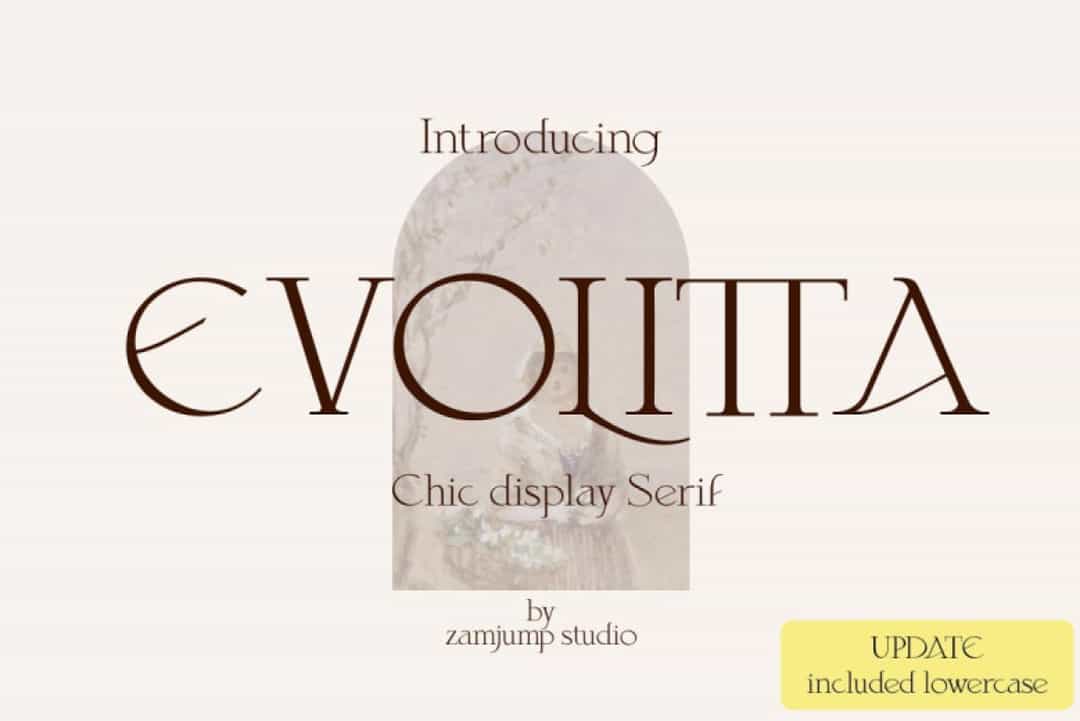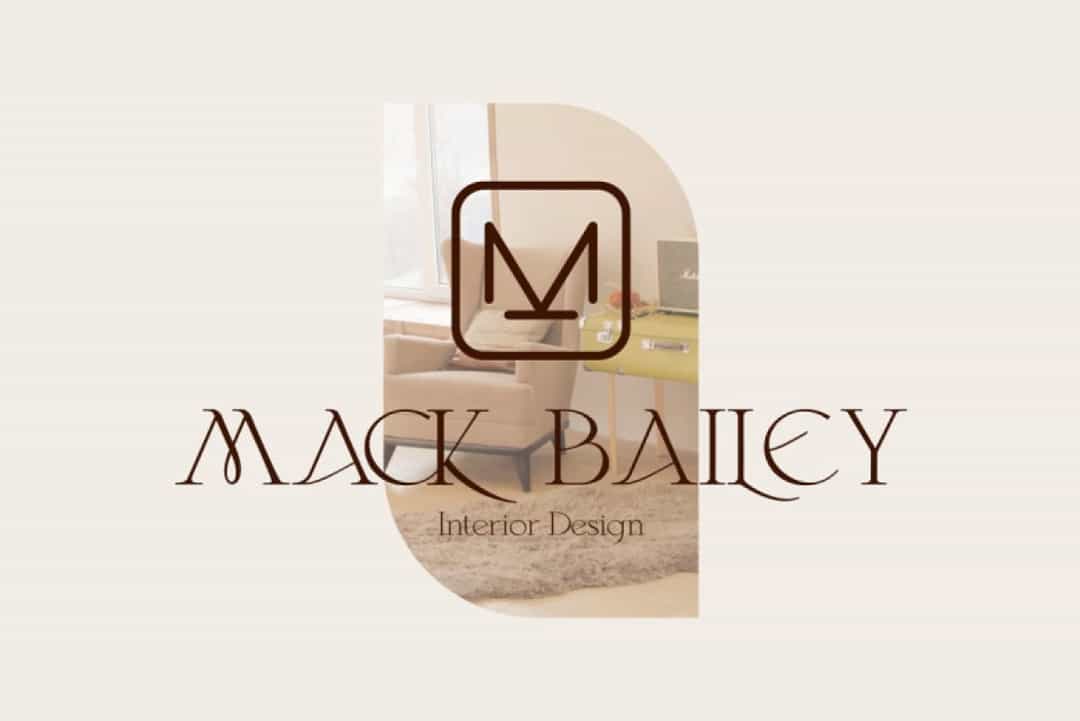
Evolitta is an elegant serif design featuring striking contrasts. Perfect for classic themed projects such as logos, quotes or profession websites; Evolitta stands out as an elegant way to convey stylish lifestyle messages through design.